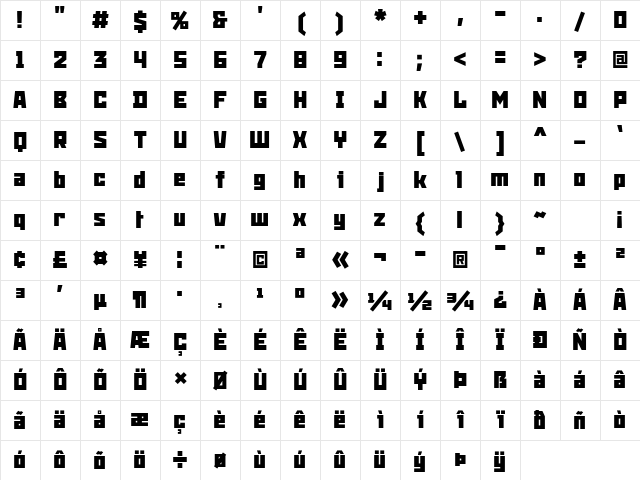
Snowstorm Bold Regular Free Font
Snowstorm Bold Regular
Design Context for Snowstorm Bold
Snowstorm Bold is a composed and adaptable typeface that performs quietly and consistently across a wide range of design contexts. Its bold stroke weight gives it real presence on the page.